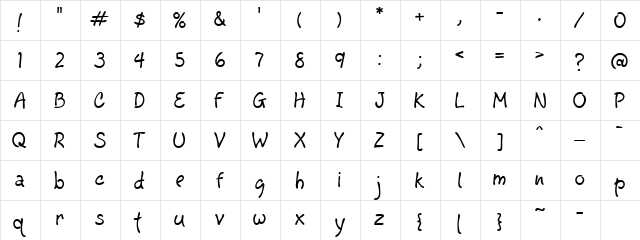
CK Greeting Card Regular
Design Context for CK Greeting Card Typeface
CK Greeting Card is a composed and adaptable typeface that performs quietly and consistently across a wide range of design contexts.